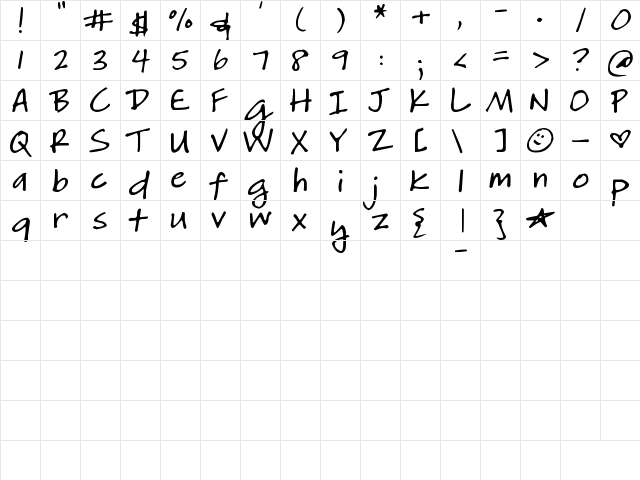
DJB HeatherG Regular
| Designer | Darcy Baldwin |
Design Context for DJB HeatherG Typeface
DJB HeatherG is a composed and adaptable typeface that performs quietly and consistently across a wide range of design contexts.